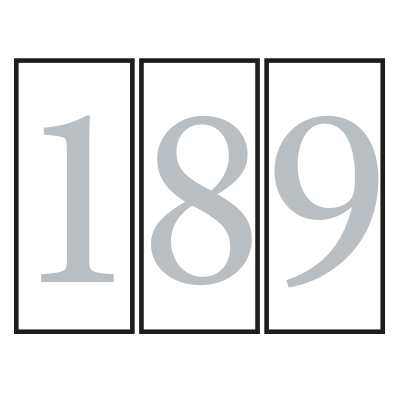
Figures with an identical width.
Dutch: tabelcijfers
French: chiffres tabulaires
German: Tabellensatz-Ziffern
Italian: Numeri tabulari
Norwegian: Tabelltall
Polish: cyfry tabelaryczne
Spanish: Números tabulares
Figures with an identical width.